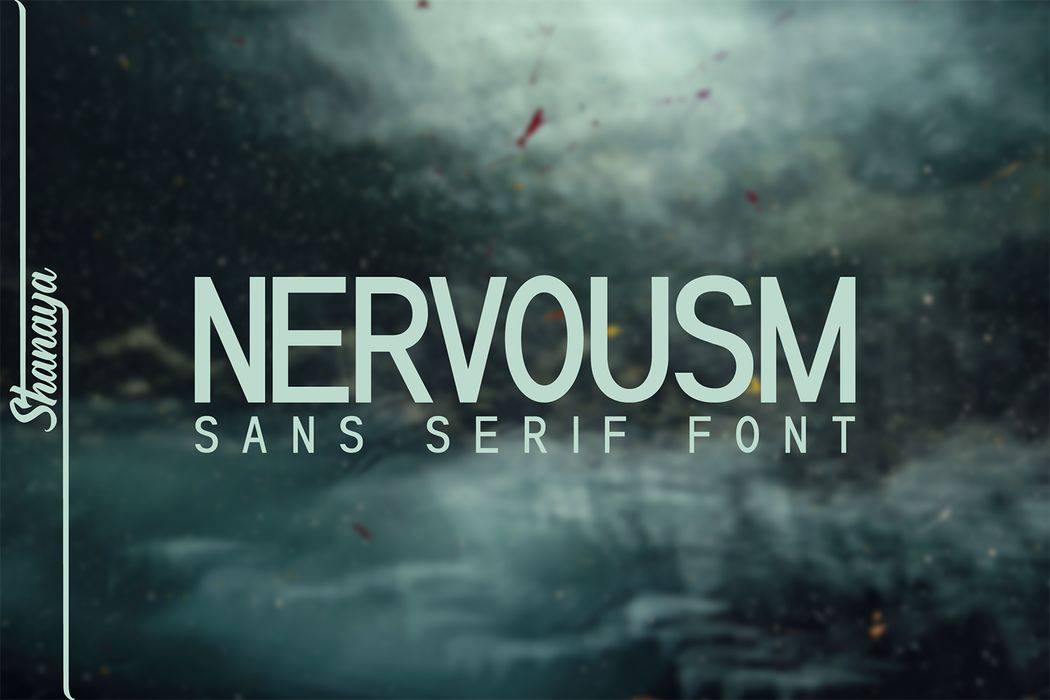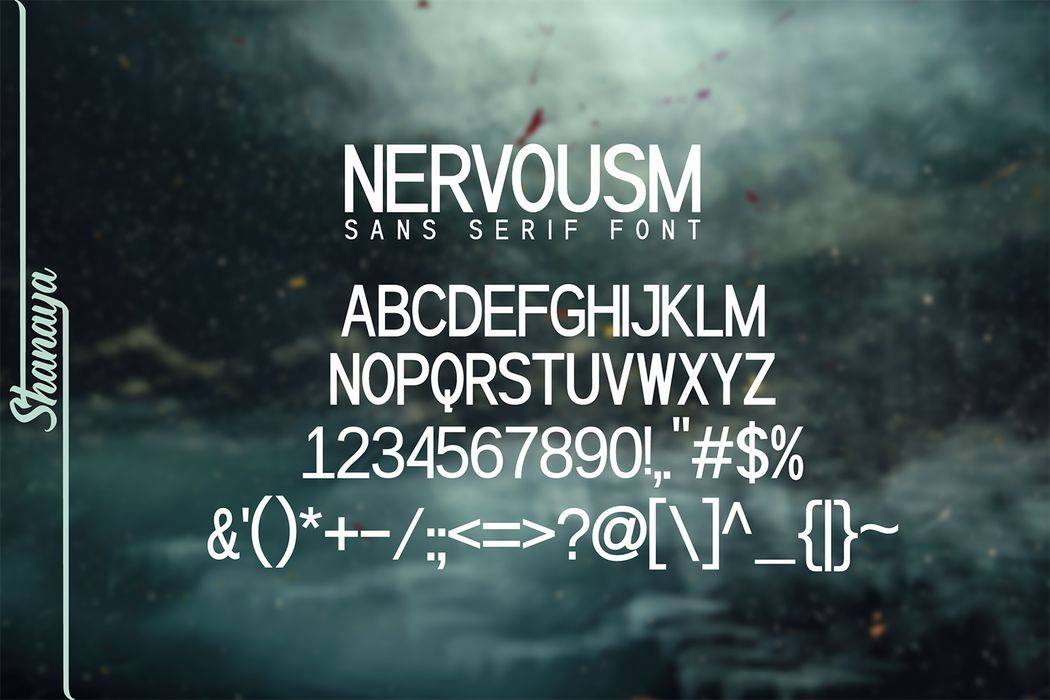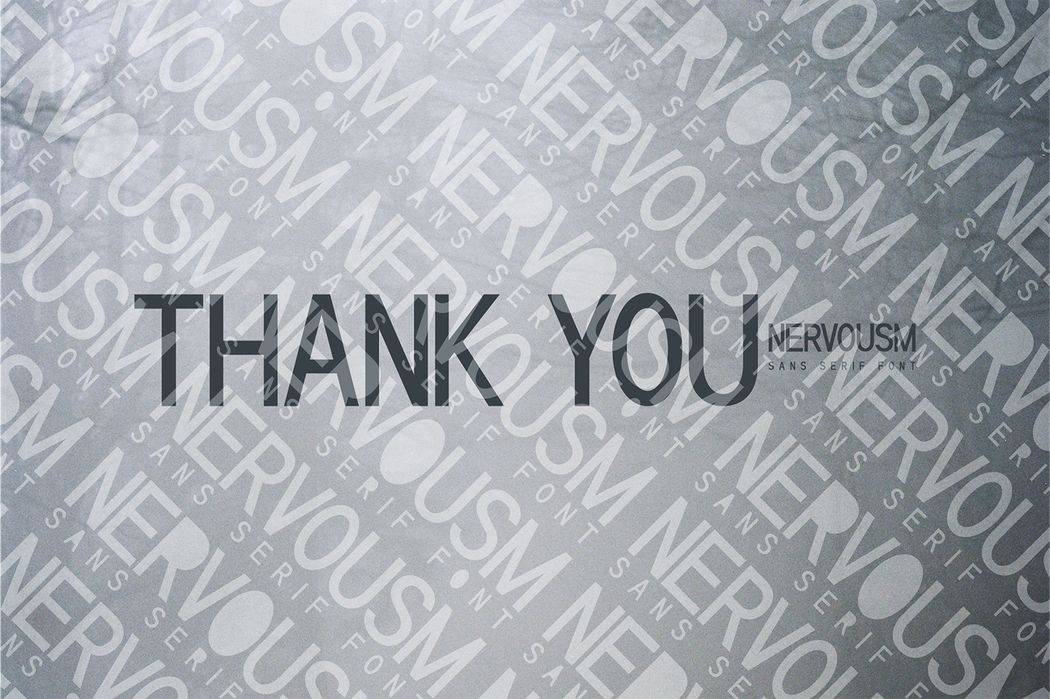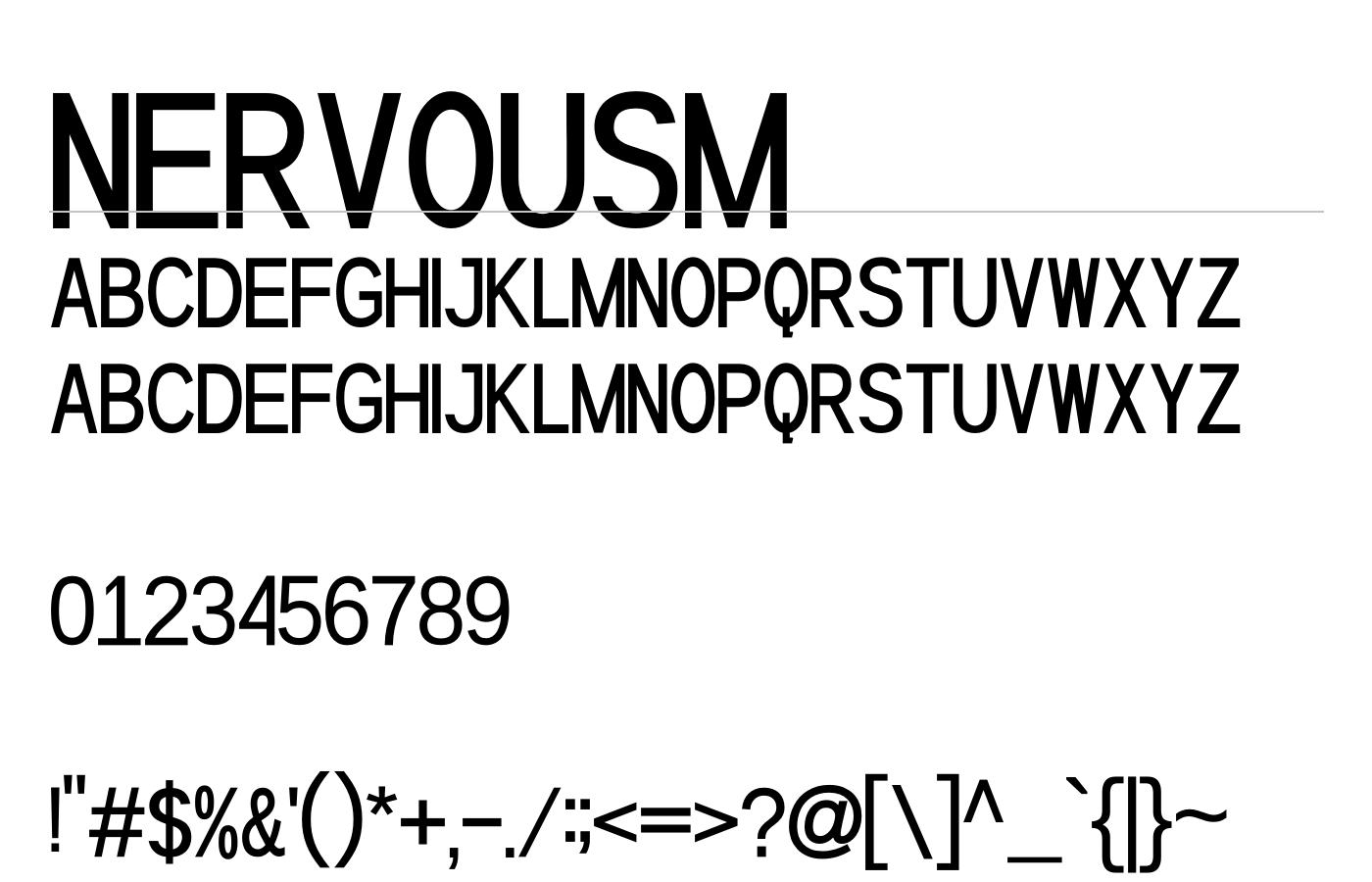
Nervousm is a tall, condensed sans serif font characterized by its narrow and elongated letterforms with consistent stroke weight and minimal contrast. Its clean, modern design conveys a sleek, professional vibe that works well for headlines, editorial layouts, and branding needing a confident, futuristic touch. This font’s straightforward shapes and tight spacing make it ideal for impactful display use where clarity and style must coexist.
Nervousm Font
About Nervousm Font